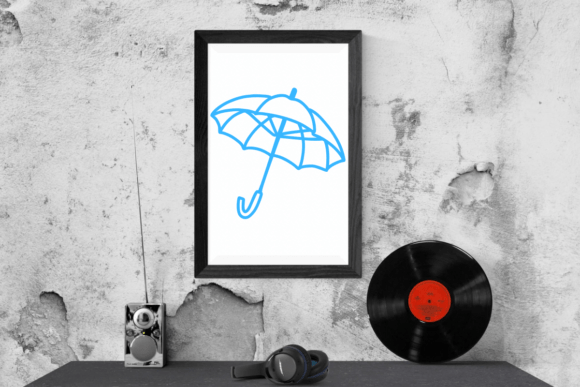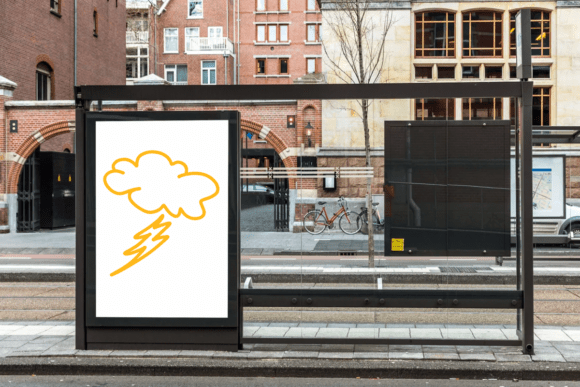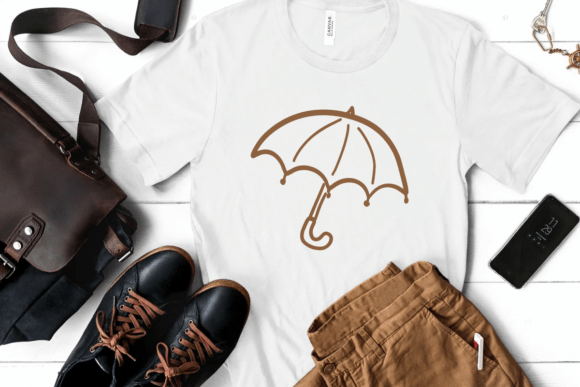
Introduction to Cute Weather Doodle Font
Who hasn’t found themselves daydreaming about the perfect font for their next creative project? As designers, we’re constantly on the lookout for unique design resources that bring our ideas to life. And, let’s be honest, there’s something special about a font that makes you smile.
Imagine you’re planning a kid-friendly calendar or creating educational materials that make learning fun. You need a font that’s not only high-quality but also visually appealing and engaging. That’s where the Cute Weather Doodle Font comes in – a delightful dingbats font packed with hand-drawn weather-themed illustrations that add a charming and whimsical touch to any project.
Key Features of Cute Weather Doodle Font
- High-quality design resource perfect for creative projects, offering a unique and playful touch.
- Unique characteristics include adorable doodle illustrations of various weather elements, such as clouds, suns, and rainbows.
- Perfect for adding a whimsical and creative touch to digital designs, including social media graphics, blog posts, and more.
Honest Review: Cute Weather Doodle Font
As a designer, I’m always on the lookout for high-quality design resources to elevate my creative projects. The Cute Weather Doodle Font is a lovely addition to any design library, and I’m excited to share my honest review with you.
- ✨ The font is incredibly cute and playful, perfect for children’s books, party invitations, or any project that needs a touch of whimsy.
- ⚠️ The font is only suitable for casual or creative projects, as it may not be suitable for formal or professional use.
- ⚠️ The font may not be as versatile as some other fonts, so it’s essential to use it in context with other design elements.
Overall, I’m impressed with the Cute Weather Doodle Font. It’s a delightful addition to any design library, and I appreciate its high quality and free availability. While it may have some limitations, it’s an excellent resource for designers looking to add a touch of playfulness to their creative projects.
Cute Weather Doodle Font
The Cute Weather Doodle Font is a high-quality design resource that offers a unique and playful style. It’s perfect for creative projects where you want to add a touch of whimsy and fun. You can download the font for free and use it in a variety of applications, including Canva, Adobe Photoshop/Illustrator, and PowerPoint/Word.
Here are a few tips for getting the most out of the Cute Weather Doodle Font:
- Use the font with a transparent background to create a fun and playful design.
- Experiment with different font sizes and styles to add visual interest to your designs.
- Combine the font with other design elements, such as icons and graphics, to create a unique and eye-catching design.
The Cute Weather Doodle Font is perfect for a variety of creative projects, including:
- Social media posts and graphics
- Blog posts and articles
- Marketing materials and advertising